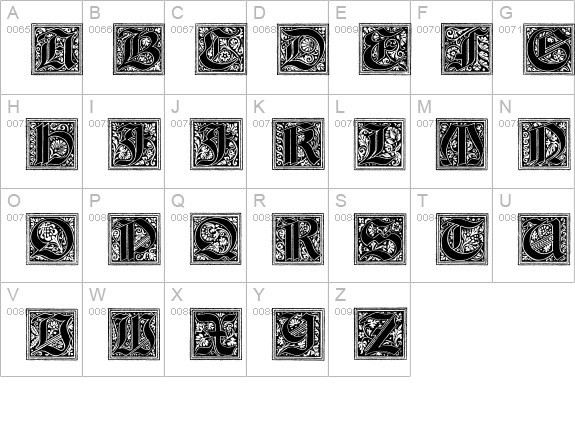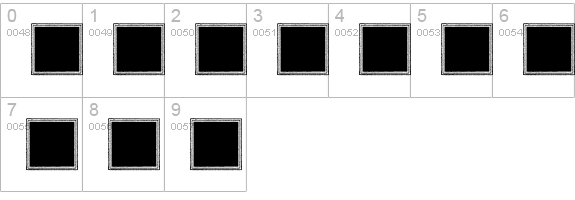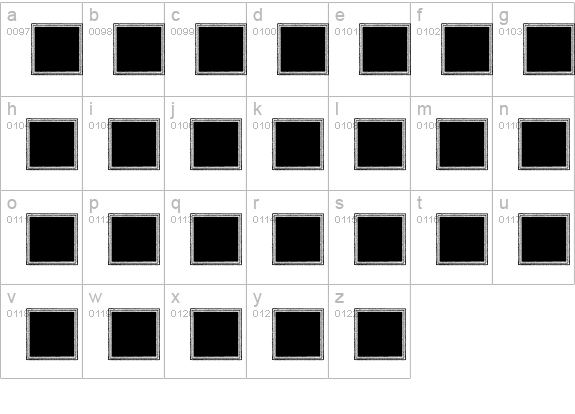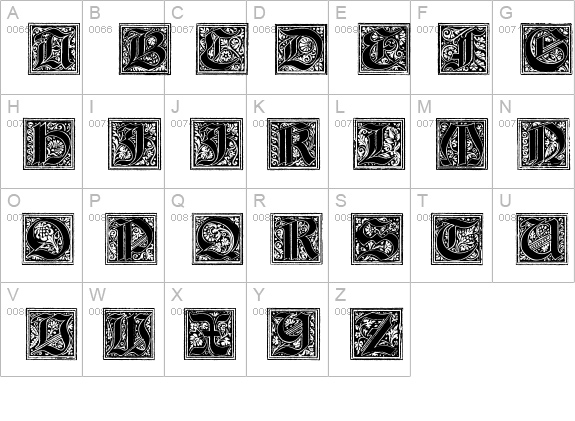
Camelot_Initials Font Details
Camelot_Initials font is a stunning display typeface that exudes elegance and sophistication. Its intricate details and ornate design make it perfect for adding a touch of grandeur to your projects. The regal and timeless look of Camelot_Initials font will transport your designs to a realm of enchantment and charm. Best of all, Camelot_Initials font is available for free download at FontsMarket.com. This means you can enhance your creations with this exquisite font without any cost. Whether you're designing invitations, posters, or branding materials, Camelot_Initials font will bring a touch of magic to your work. Download it today and elevate your designs to a new level of sophistication.